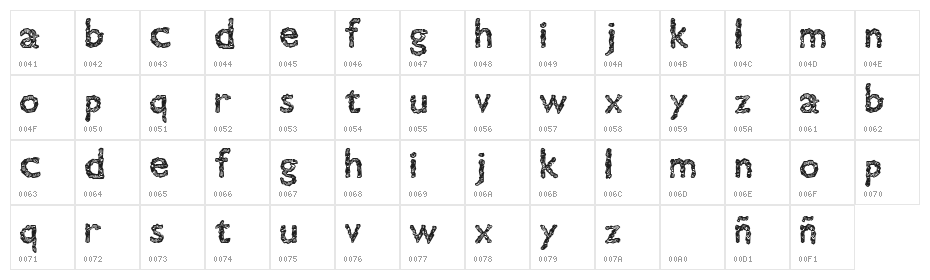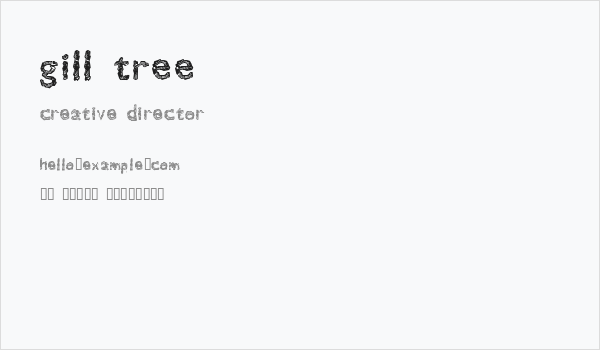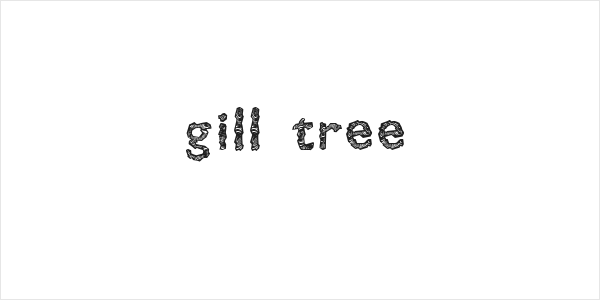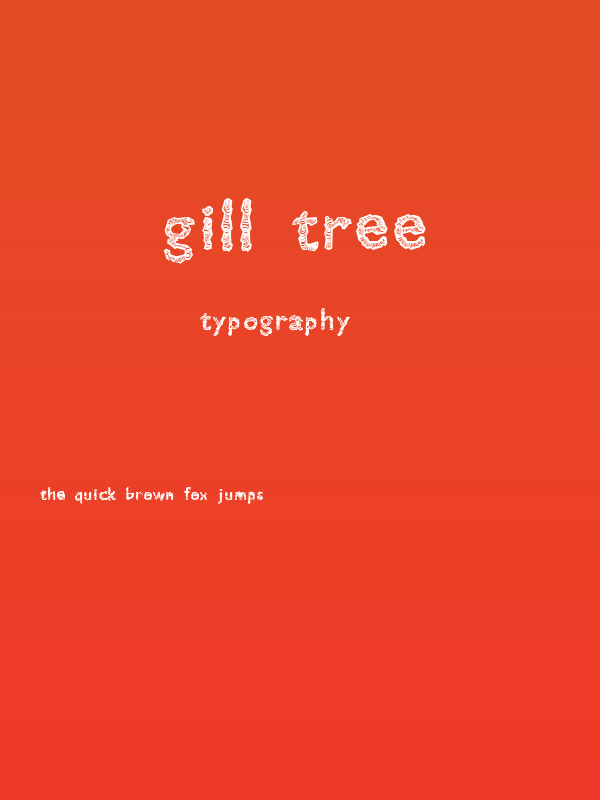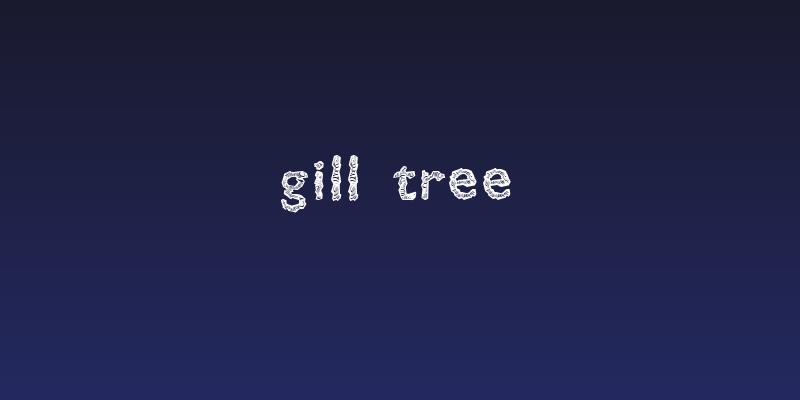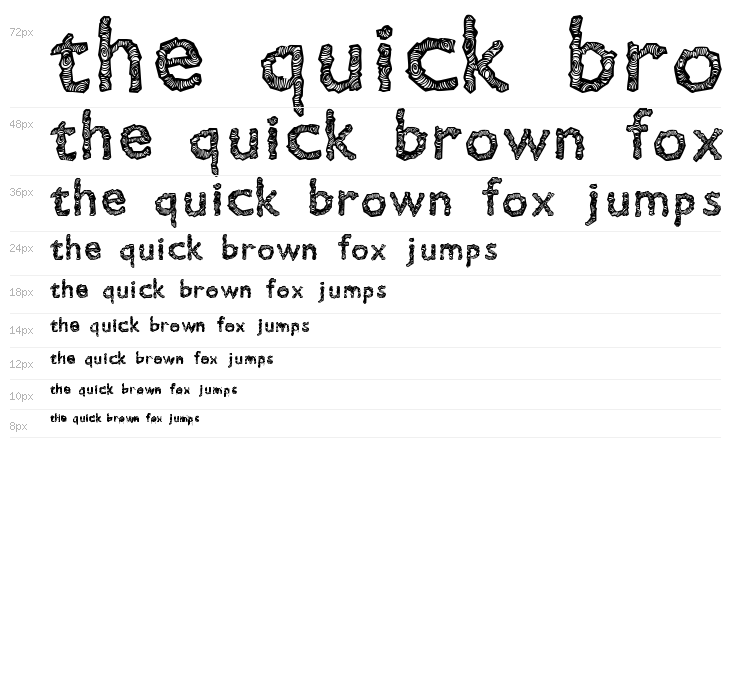
Gill Tree Font
✎ Decorative
| Название | Gill Tree |
| Категория | Decorative |
| Общий стиль | Rustic, Artistic |
| Область применения | Logos, Posters, Invitations |
| Рекомендуемые проекты | Ideal for eco-friendly branding, nature-themed posters, artistic book covers, and rustic wedding invitations. |